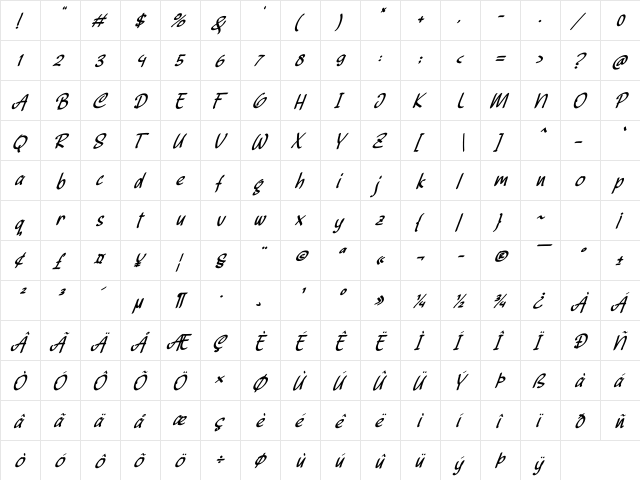
Beckhand Italic Regular Font Preview
Beckhand Italic Regular
Beckhand Italic Regular Font Details
| Foundry | Kong Font |
| Designer | Kong Font |
Design Context for Beckhand Italic Typeface
Beckhand Italic brings a calligraphic fluidity to the page — its connecting strokes and expressive curves give it an unmistakably human quality.
Font Pairing: Combine Beckhand Italic with a simple geometric sans for maximum contrast — the tension between flowing curves and clean structure is a classic typographic pairing.
Pro Tip: Pair Beckhand Italic with a clean sans-serif for supporting text. The contrast between fluid script and geometric structure creates an elegant typographic hierarchy.